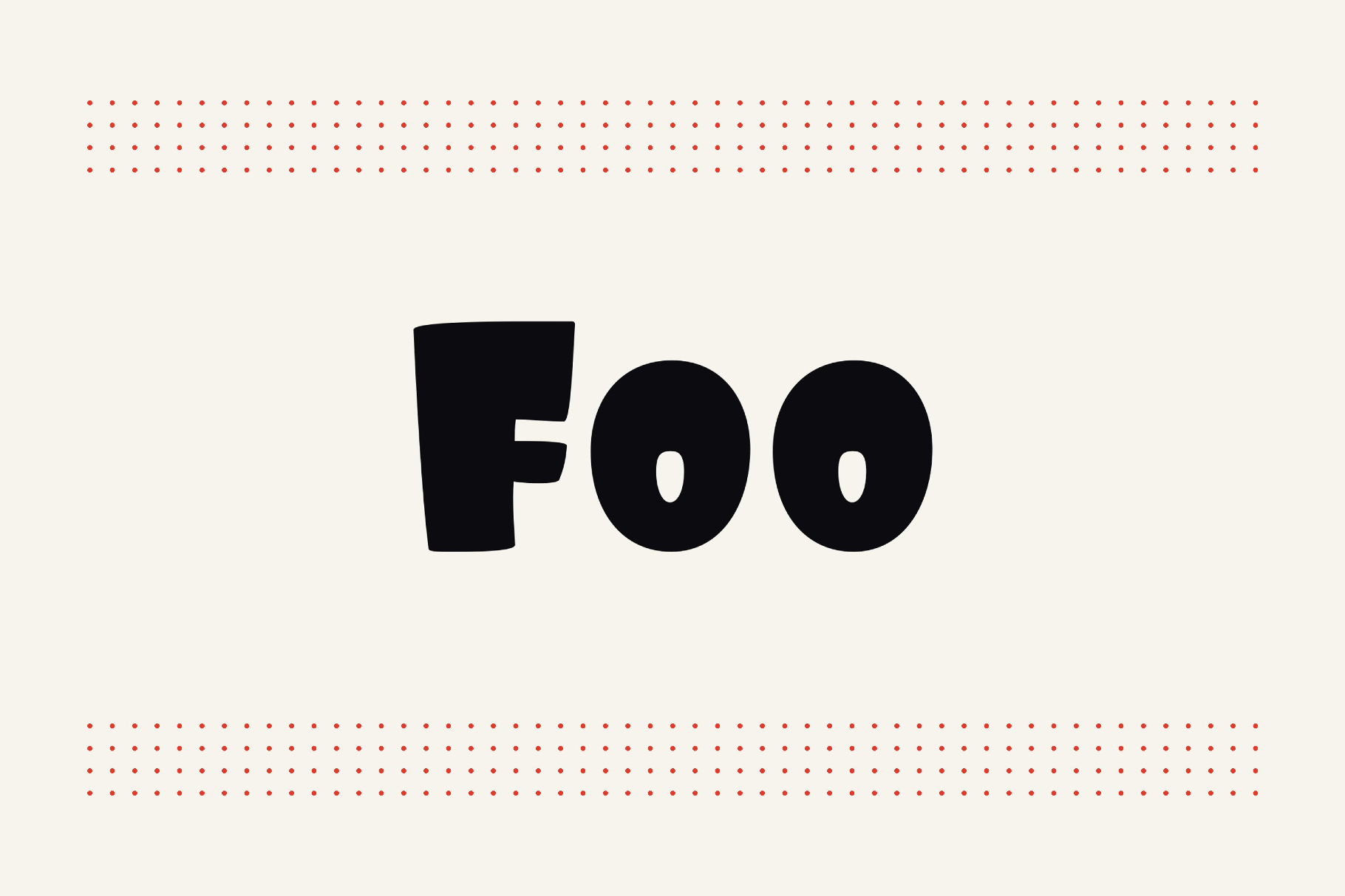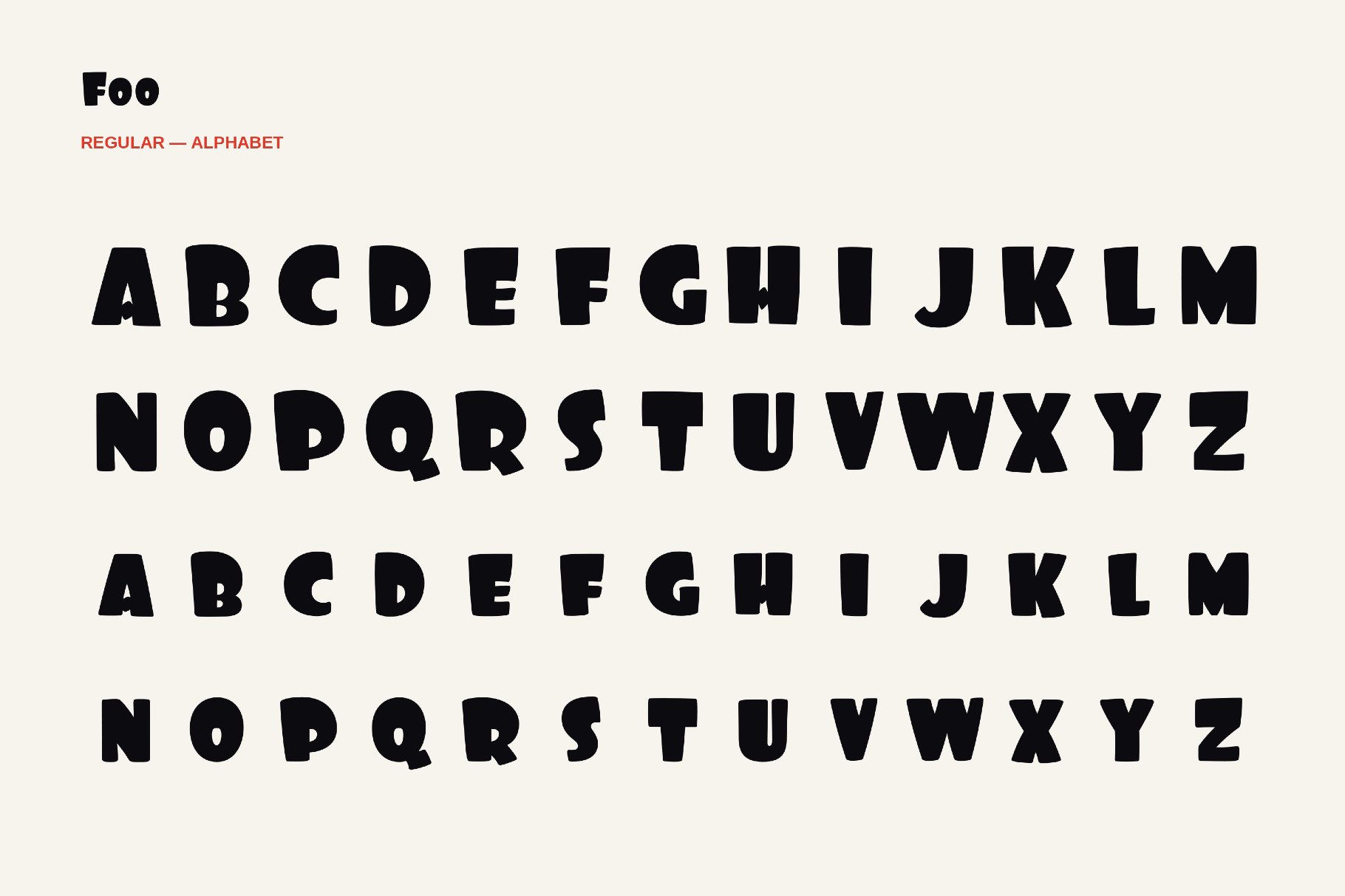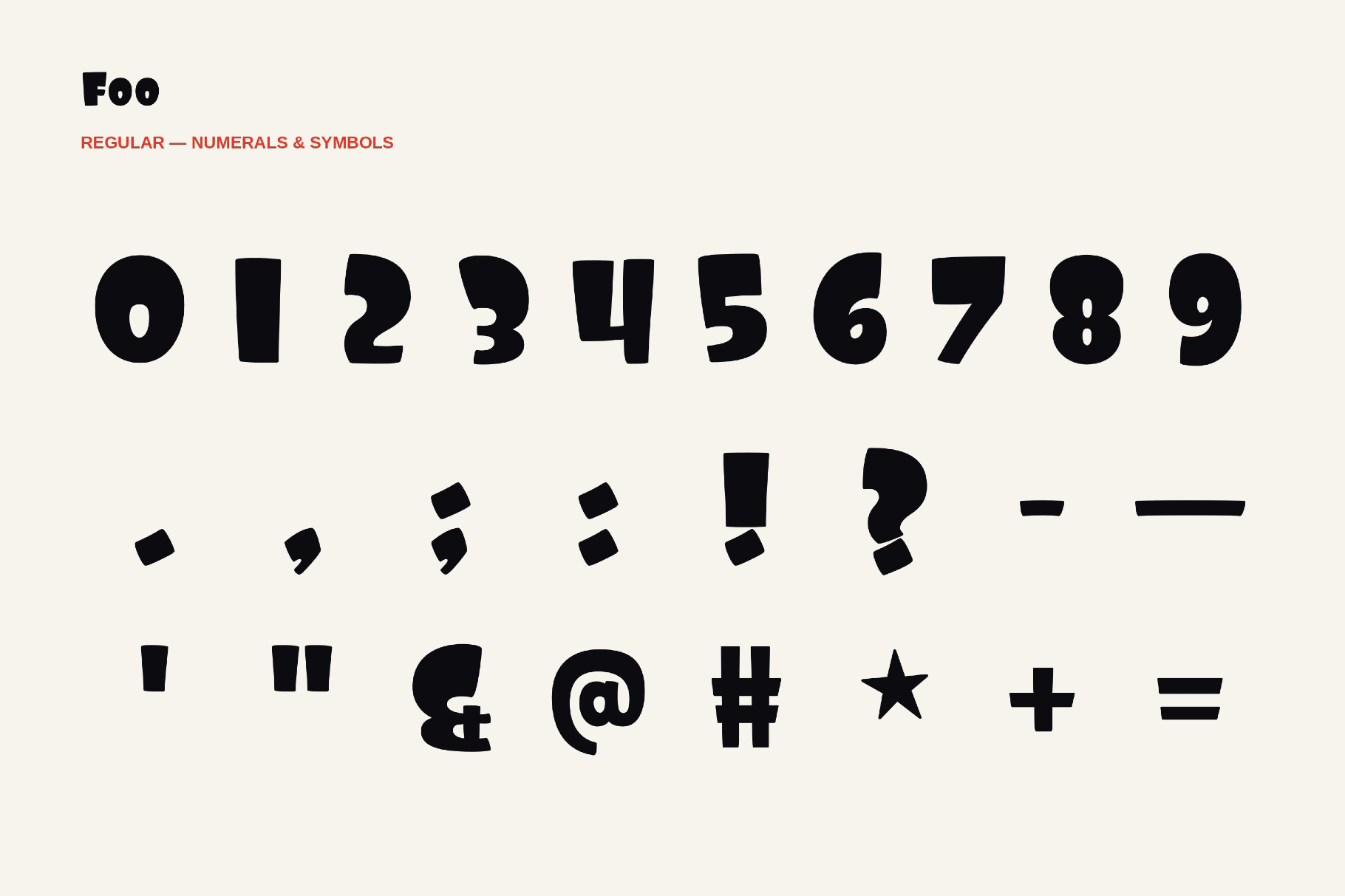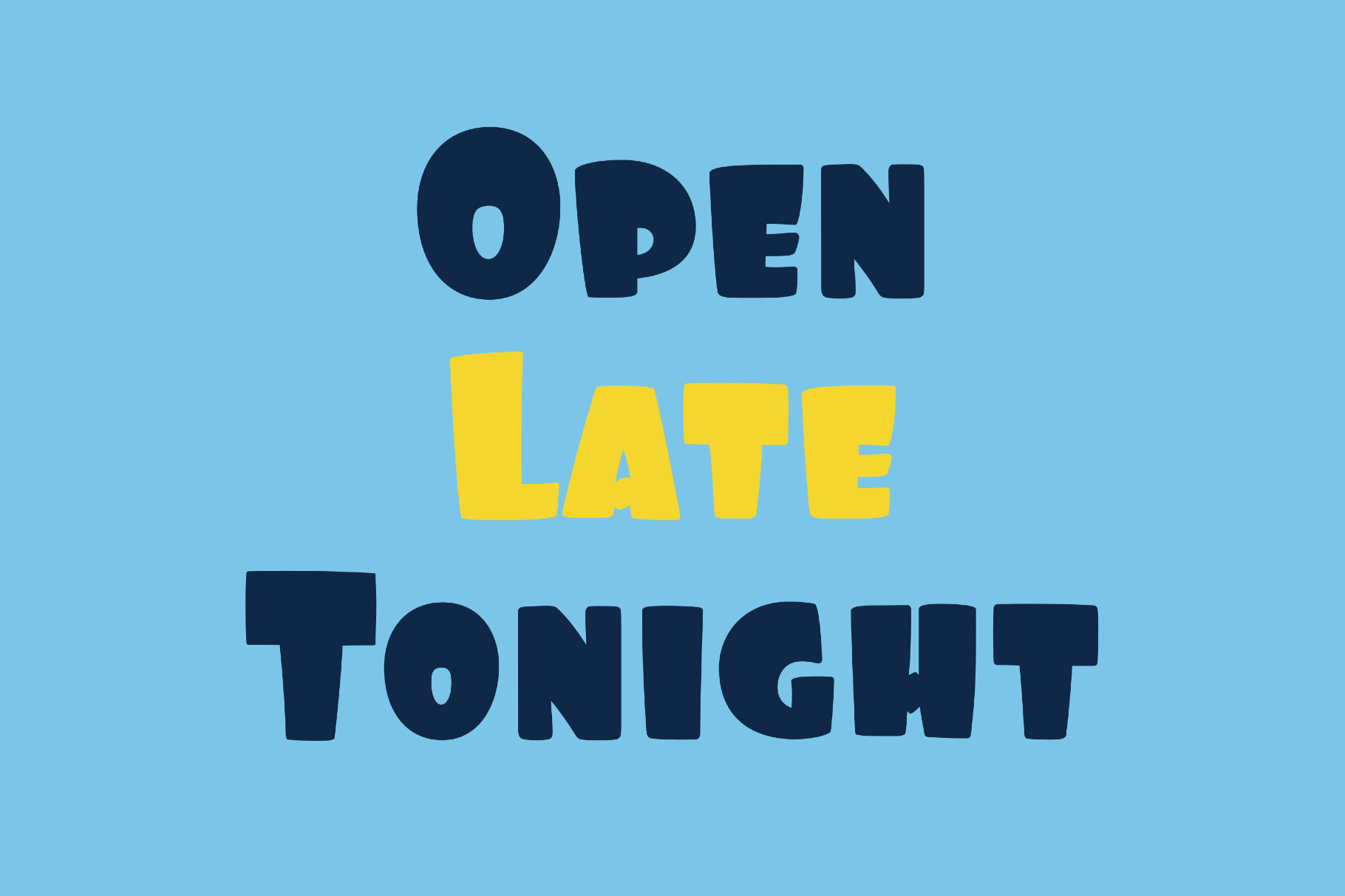
Foo
A hefty cartoon headline style of Foo with playful curves and a hand-lettered rhythm rooted in early twentieth-century Speedball pen work. Its character recalls showcard signs, fairground banners, diner menu boards, and old comic captions.
Its personable weight works well for poster titles, diner menus, children’s packaging, party invitations, sticker art, comic lettering, toy labels, food branding, event graphics, merch prints, and social media artwork.
- uppercase and lower uppercase letters;
- numbers, punctuation, and symbols;
- multilingual support across extended Latin and Cyrillic scripts;
- ligatures.